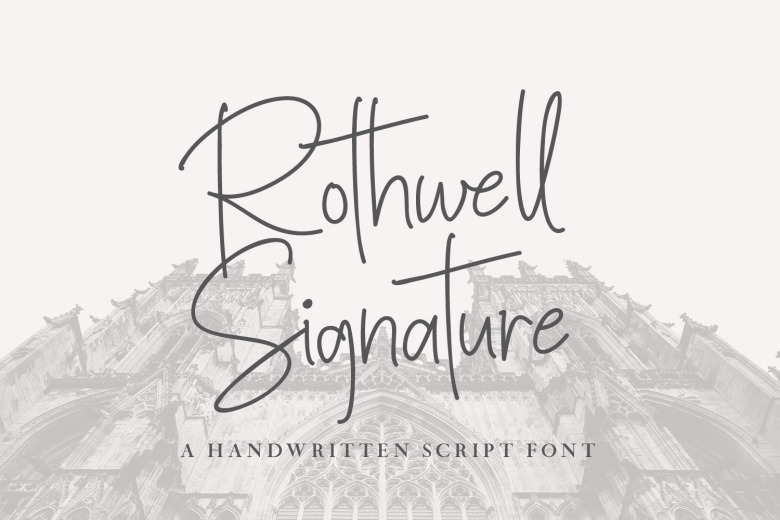
Rothwell Signature Font
Authentic and organic handwriting style font. The Rothwell Signature is on fire right now. This font is perfect for handwritten quotes, signature-style logos and high fashion branding projects. It’s also great in hand-crafted product & stationery designs such as t-shirts, notebooks or posters. Rothwell SignatureA hand-written script containing all these characters: uppercase, and lowercase, numerals; plenty of punctuation. Rothwell Signature also contains for both standard character and alt character and ligatures.
Rothwell Signature Script Font